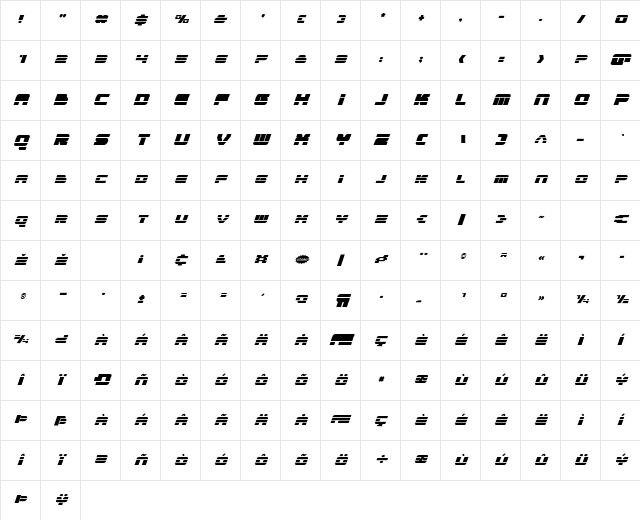
Quicken is a composed and adaptable typeface that performs quietly and consistently across a wide range of design contexts. The slanted form adds forward momentum and visual energy.